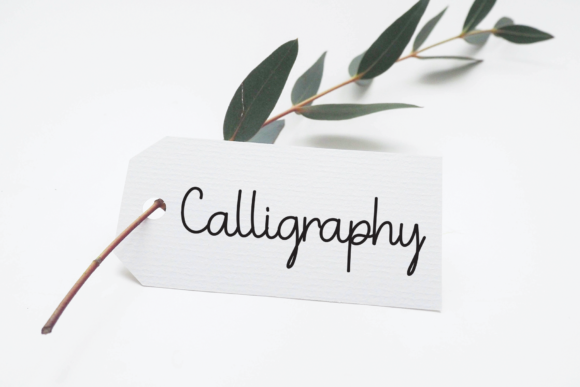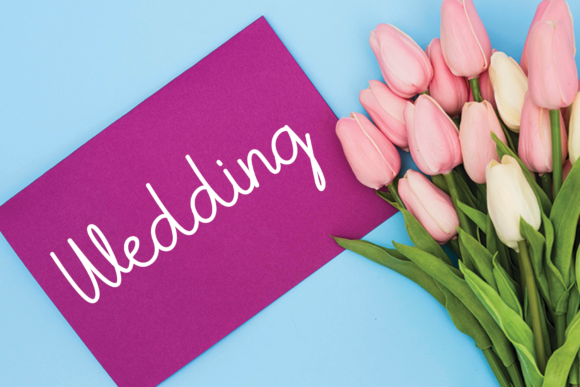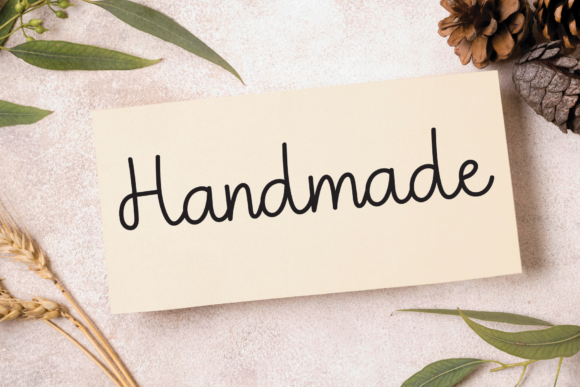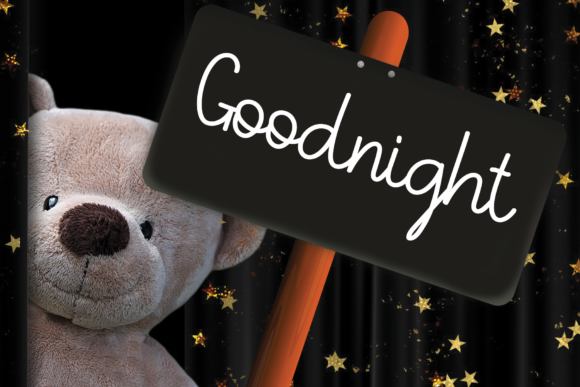
Natural Font
Discover the enchanting allure of a script font that embodies sweetness, whimsy, fluidity, and a delicate, thin elegance. This unique typeface introduces a playful dance of characters gracefully moving along a baseline, infusing a sense of magic and luxury into every design project it graces.
The charm of this script font lies in its whimsical nature, as if each character pirouettes along the baseline, creating a delightful rhythm that captures attention. The script’s fluid strokes contribute to its overall grace, making it a perfect choice for projects that demand a harmonious blend of sophistication and playfulness.
Imagine the impact of this script font on a wedding invitation, where the letters dance joyfully, setting the stage for a celebration filled with grace and charm. Picture it on high-end product packaging, instantly conveying an air of exclusivity and elegance that appeals to discerning consumers.
The font’s thin and delicate lines enhance its aesthetic appeal, ensuring it remains light and versatile. Whether applied to branding, logos, or editorial design, its enchanting qualities shine through, creating a seamless and delightful reading experience across both digital and print formats.
This whimsical script font goes beyond conventional typography; it’s an artistic element that transcends mere letters, making a bold statement in visual communication. As technology and design continue to evolve, the timelessness of this font persists, capable of infusing diverse projects with a touch of magic.
In summary, the sweet, whimsical, fluid, and thin script font with characters dancing along a baseline is more than a typographic choice; it’s a transformative design element. As you embark on your creative journey, consider the luxury, sophistication, and enchantment this script font brings—a splash of magic that elevates your design projects to new heights.